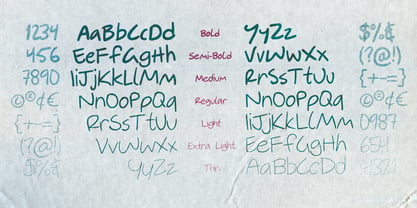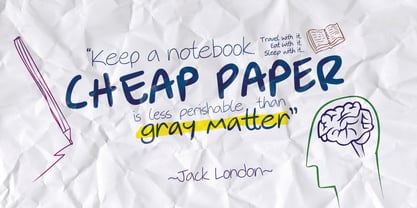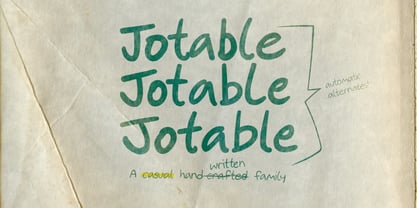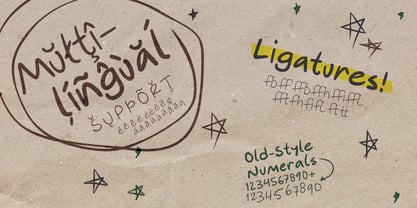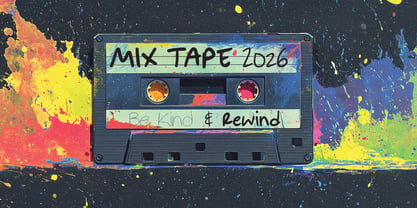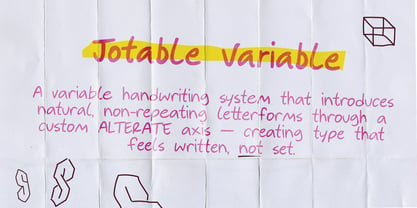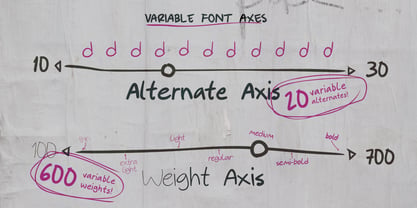
Jotable
Jotable Variable is a handwriting-inspired type system designed to capture the natural rhythm, variation, and imperfection of real writing. Built from the designer’s own hand, Jotable brings an authentic, human voice into a flexible variable font framework. At its core is a custom Alternate axis, which controls how letterforms shift between multiple alternate drawings. As text is set, subtle variation is introduced across characters, reducing repetition and creating a more organic, hand-drawn feel. Designers can dial this behavior from stable and consistent to loose and expressive, making Jotable equally suited for controlled typography and lively, animated text. Alongside its Alternate axis, Jotable includes a variable weight range from thin to bold, allowing it to adapt across hierarchy and use cases. The result is a typeface that feels responsive and alive, without sacrificing clarity or usability. Jotable performs especially well in branding, packaging, editorial accents, motion graphics, and expressive digital work. It is ideal for projects that benefit from a personal, informal tone—ranging from creative studios and lifestyle brands to children’s products and playful campaigns. The family includes multilingual support, refined spacing and kerning, and a range of alternates and ligatures to support natural text flow across languages and contexts. Jotable is not just a handwriting font—it’s a system for creating typography that feels written, not repeated.